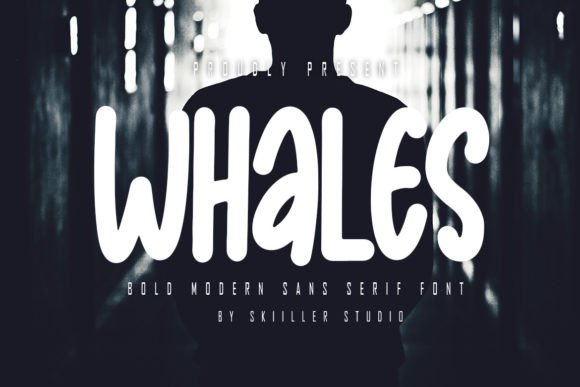
Indulge in the tantalizing world of food blogging with Whales Font, the secret weapon for culinary masterpieces. Whisk away your readers with its tantalizing charm, leaving them craving for more. Whales Font effortlessly captures the essence of your culinary adventures, adding a dash of elegance and sophistication to every recipe and review.
Crafted with meticulous care by the renowned Skiiller Studio, Whales Font dances across your screen, captivating your readers with its lively strokes and irresistible personality. Each letter is a culinary masterpiece, brimming with character and charm, ensuring your blog becomes a feast for the eyes.
Whether you're tantalizing taste buds with mouthwatering dishes, sharing kitchen secrets, or unveiling culinary journeys, Whales Font will elevate your words, transforming them into an irresistible invitation to savor every bite of your culinary creations.